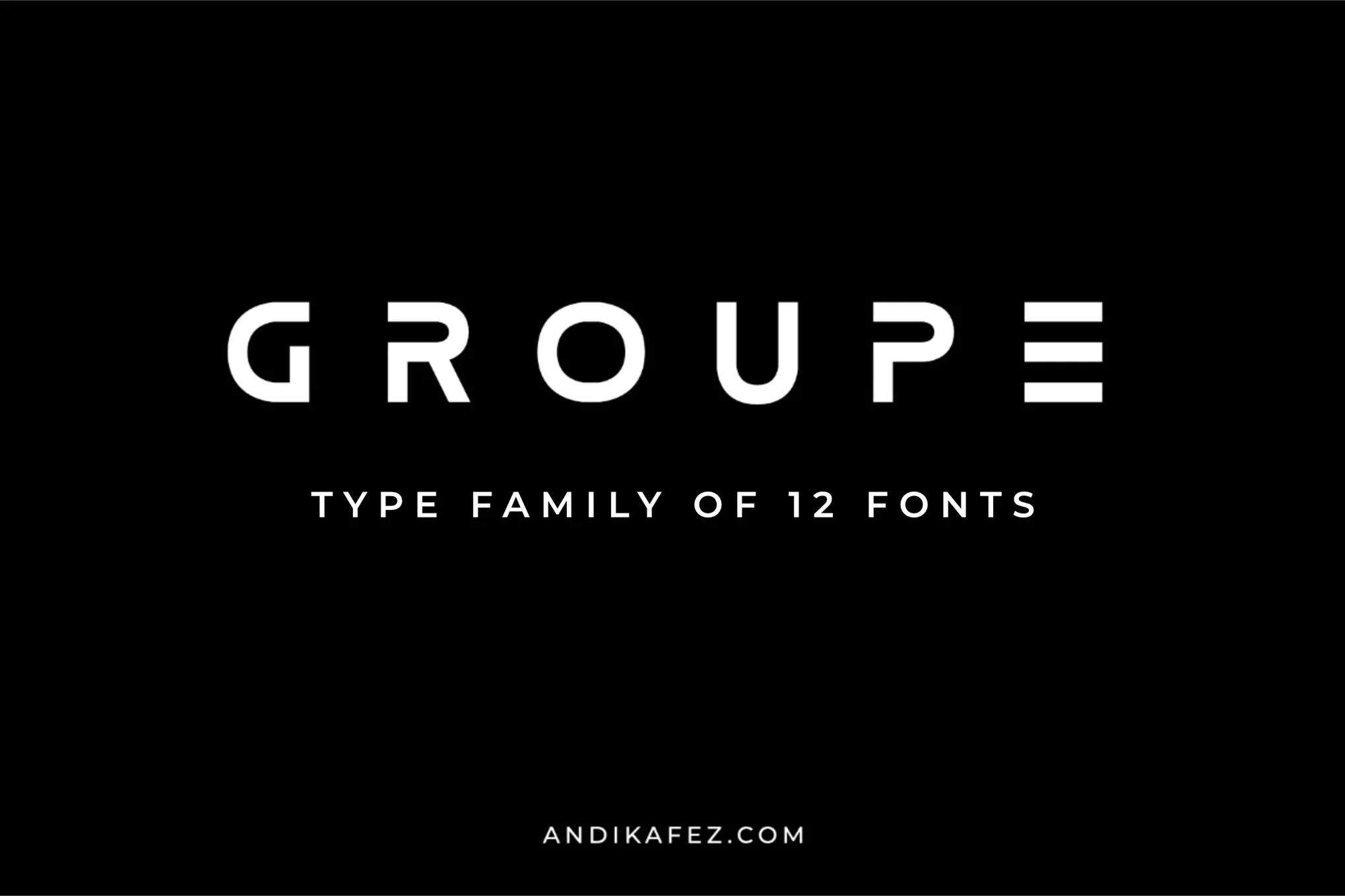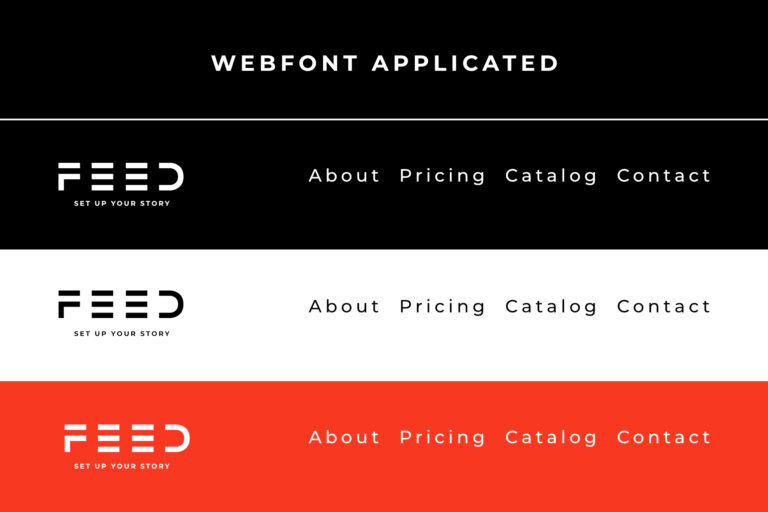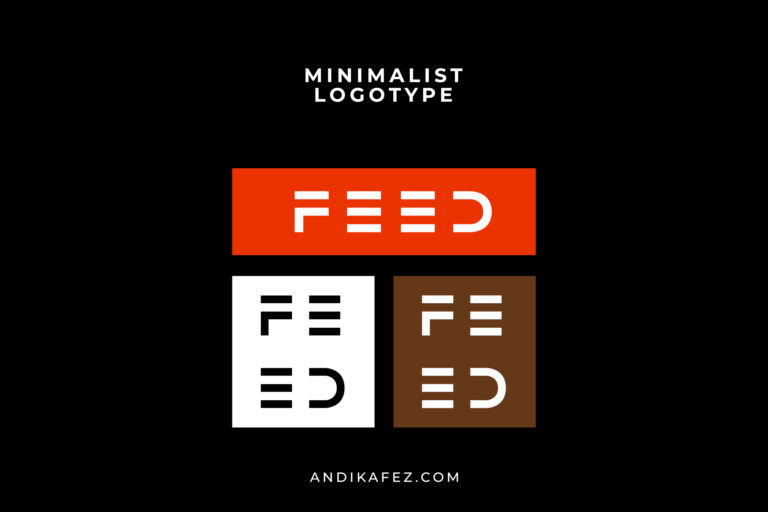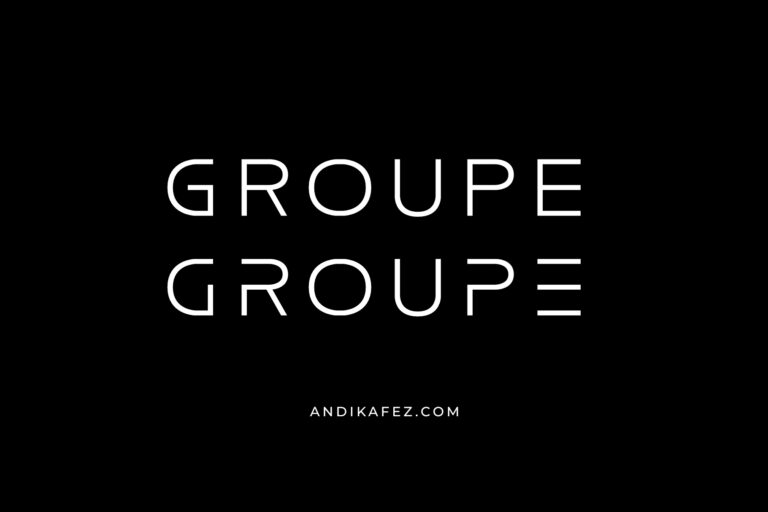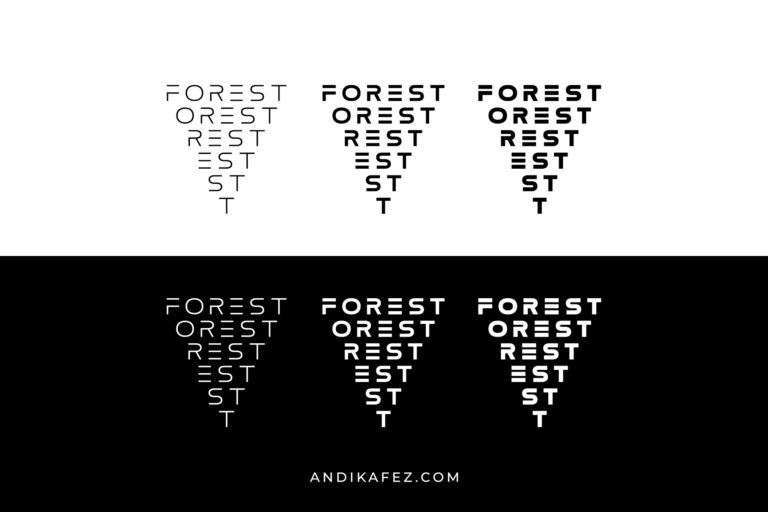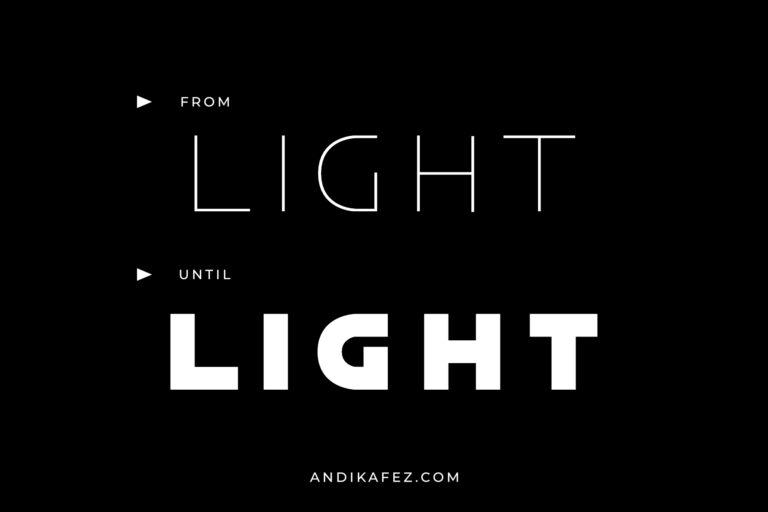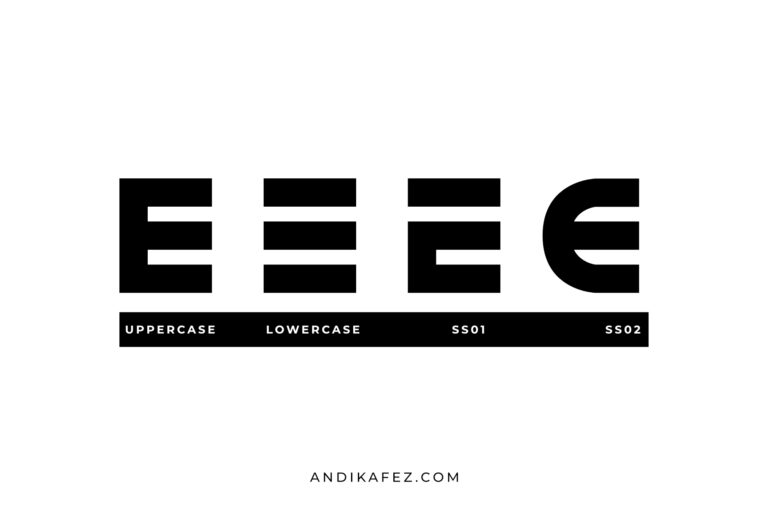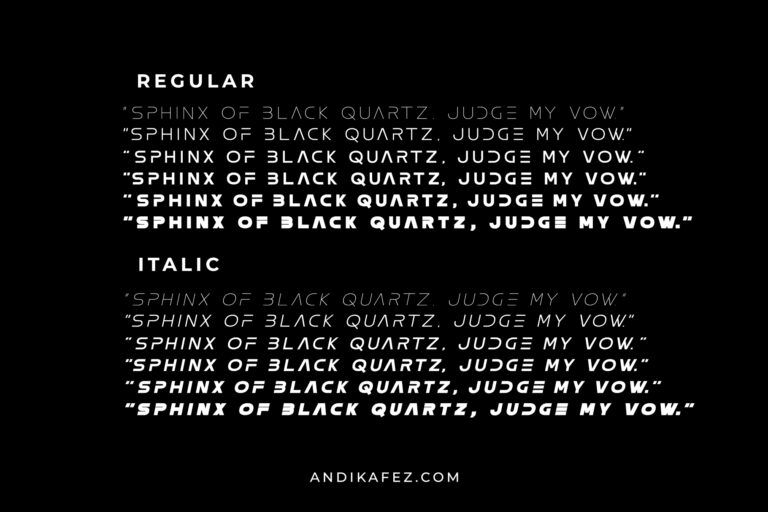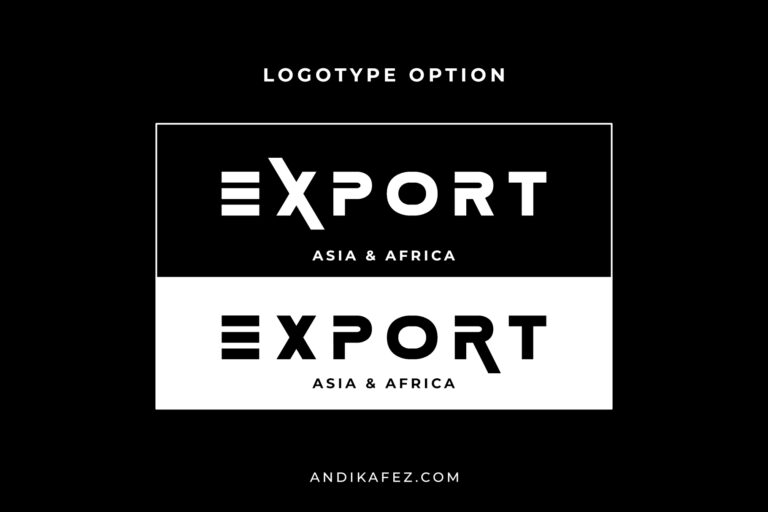
- Groupe Modern Logo Font
Groupe is a modern logo font family that blends sleek tech-inspired structure with a touch of rugged elegance. Designed for bold branding, standout logos, and forward-thinking design, Groupe brings together clean geometric lines, grunge personality, and a hint of handwritten character—all wrapped in a timeless, luxurious feel.
Perfect for industries ranging from fashion to engineering, from wedding invites to logo tech, Groupe is both technical and artistic. Its modern yet retro aesthetic makes it ideal for futuristic brands, high-end branding, and creative projects that need a balance of innovation and vintage charm.
Whether you’re building a cutting-edge tech startup, designing a minimal luxury brand, or creating a logo with real personality, Groupe offers a flexible, bold, and elegant solution. With its strong presence and subtle detail, this font family is ready to elevate your next big idea.